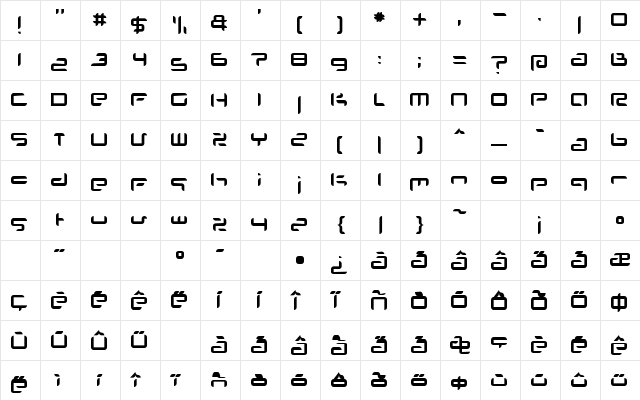
Planet Space Regular
Design Context for Planet Space Typeface
Planet Space is a composed and adaptable typeface that performs quietly and consistently across a wide range of design contexts.